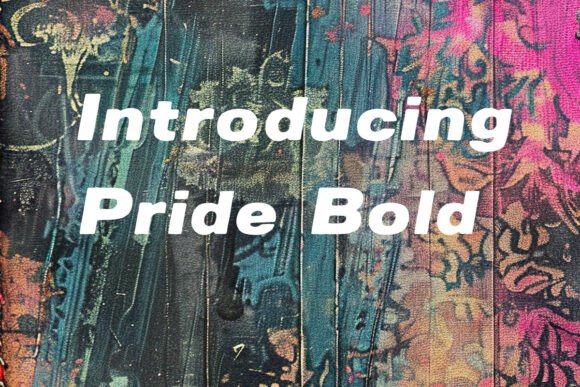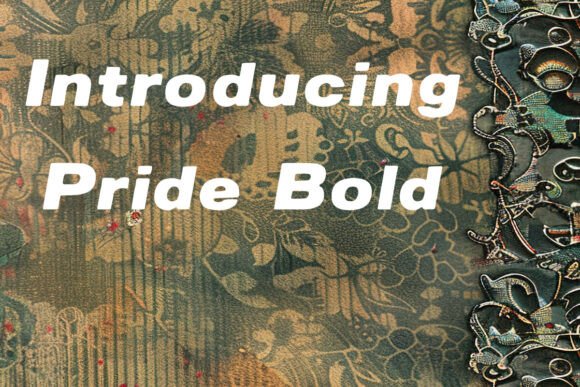
Pride Bold Font: A Creative & Inspiring Display Font for Posters
About the Pride Bold Font
Unleash your creativity with Pride Bold Font, a versatile font perfect for a wide range of applications. Experience the dynamic versatility of the Pride Bold font in all its vibrant glory. Perfectly suited for an array of applications such as breath-taking t-shirt designs, captivating branding visuals, eye-catching magazine layouts, and standout SVG files. Send your sentiments with style on greeting cards, make your mark on Cricut projects, turn heads with impressive posters and catch the attention of the digital world on social media. With Pride Bold, you’re not just typing—you’re crafting a masterpiece in every keystroke!
Pride Bold Font Usage Examples
Pride Bold Font Example